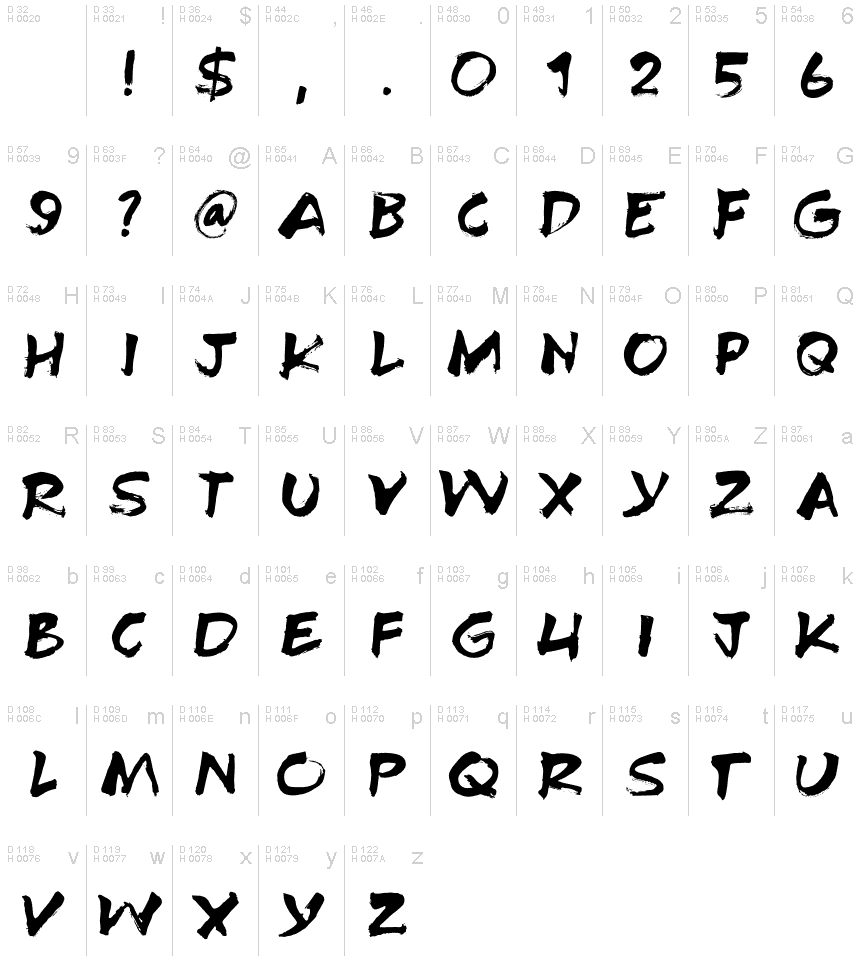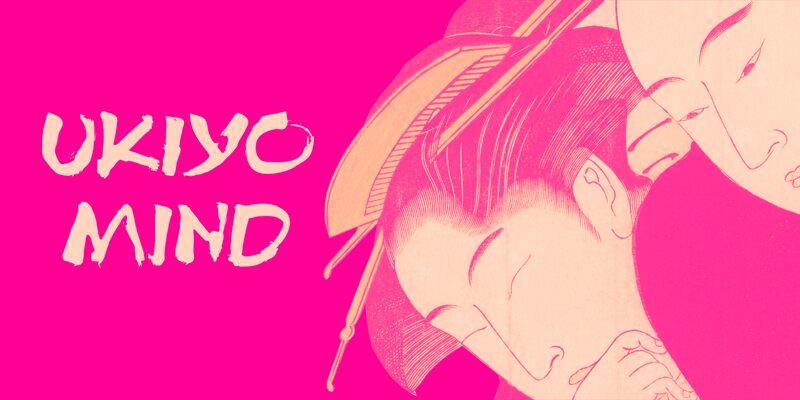
Ukiyo Mind DEMO Regular
Ukiyo Mind, the semi-bold brush typeface by D K, captures the essence of Japanese art and culture. Its expanded width adds a unique touch of modernity to its traditional brush style. Ideal for branding, packaging, and editorial projects that require a bold yet elegant look. Use Ukiyo Mind to create eye-catching headlines or as an accent font in body text. Its versatility lends itself perfectly to designs requiring a touch of sophistication and creativity. Let Ukiyo Mind be your go-to font for projects that demand style and personality.